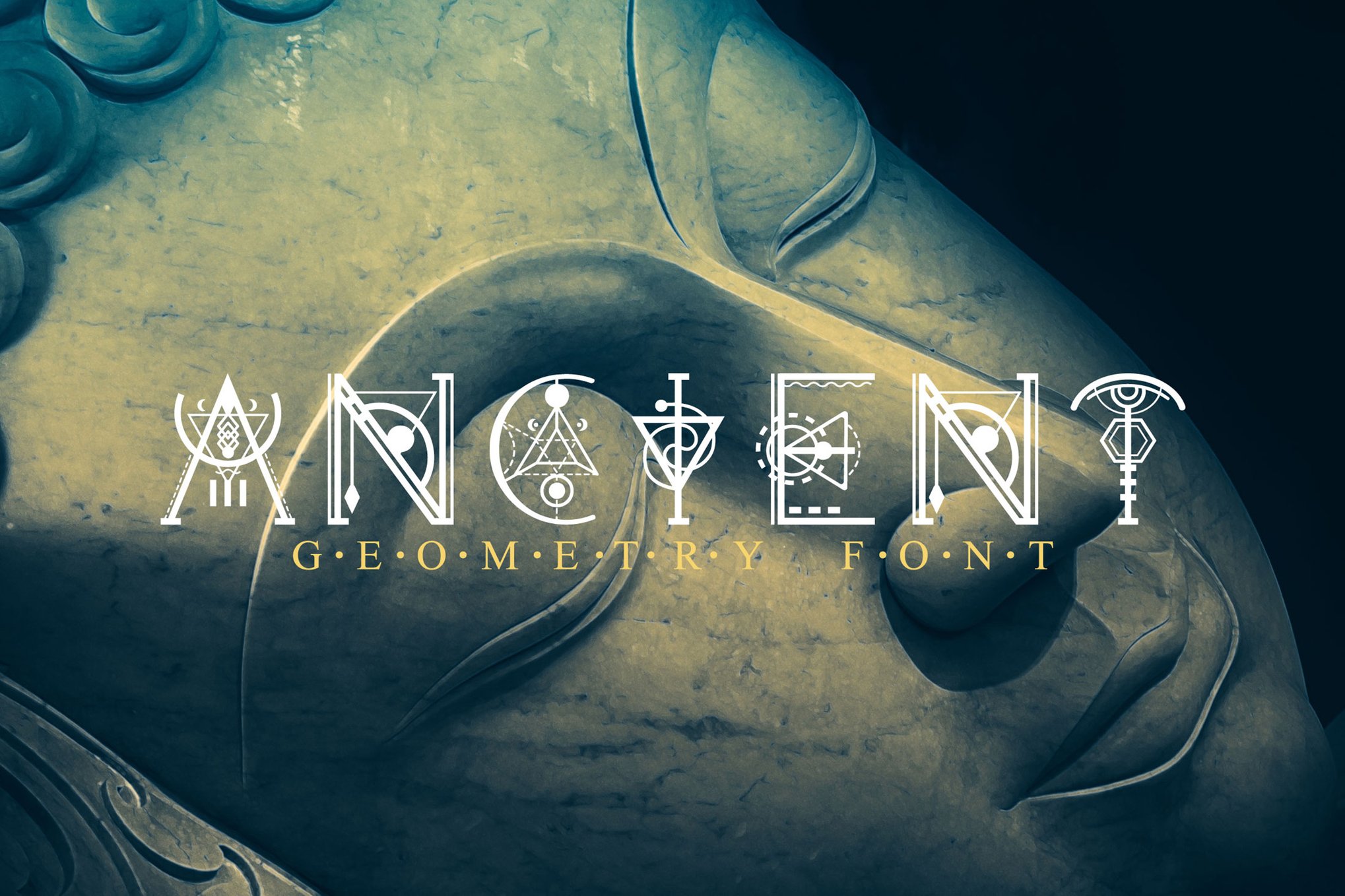
Ancient-Geometry Font
Ancient-Geometry Font is perfectly suited for historical museum branding, archaeological publication layouts, ancient civilization documentaries, mystical book covers, sacred geometry artwork, historical fiction novels, cultural heritage materials, mathematical educational resources, and philosophical text designs.
What makes Ancient-Geometry Font so exciting is its fascinating fusion of mathematical precision and historical mystique that bridges ancient wisdom with contemporary design through every geometrically perfect letterform. This extraordinary typeface captures the essence of classical civilization with its sacred geometric proportions and mysterious character shapes that evoke the mathematical principles discovered by ancient scholars and philosophers. The font's harmonious angles and mystical symmetry create an atmosphere of intellectual depth and spiritual significance that resonates with audiences who appreciate the intersection of mathematics, history, and ancient wisdom. Ancient-Geometry Font stands out through its ability to convey historical authority, mathematical beauty, and mystical knowledge, making it perfect for projects that need to establish scholarly credibility while exploring the timeless connections between geometry, spirituality, and human understanding.
The Ancient-Geometry Font family includes Light, Regular, Medium, and Bold weights, each maintaining the font's distinctive geometric character while providing design flexibility for various historical applications. The family also features sacred symbols, mathematical elements, and ancient ornaments that enhance the font's mystical appeal and provide comprehensive solutions for scholarly and spiritual design projects.
The technical mastery of Ancient-Geometry Font includes an extensive character set with uppercase and lowercase letters, numerals, punctuation marks, and sacred geometric symbols that maintain the font's historical character. The font has been carefully crafted to ensure optimal mathematical proportions and visual harmony across both digital and print applications while preserving the mystical details that give it its distinctive ancient character and scholarly appeal.
Whether you're designing historical publications, creating educational materials about ancient civilizations, developing museum exhibitions, or crafting designs that celebrate the intersection of mathematics and mysticism, Ancient-Geometry Font delivers the perfect combination of historical authenticity and geometric precision that makes your projects intellectually compelling and spiritually resonant for audiences seeking connection to ancient wisdom and mathematical beauty.